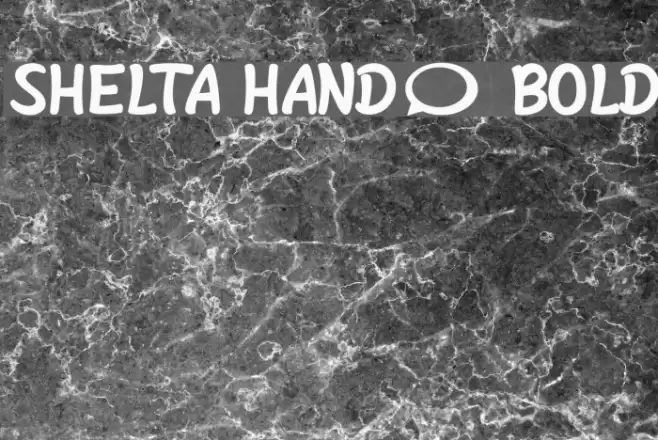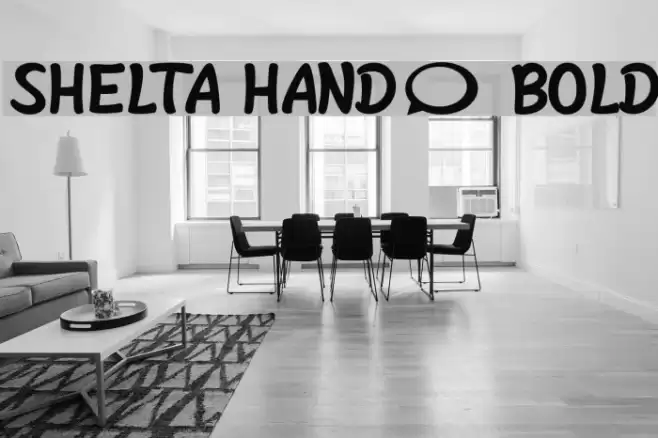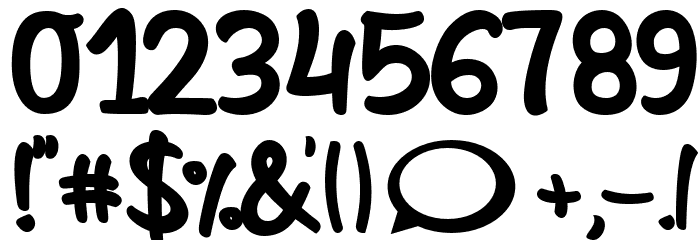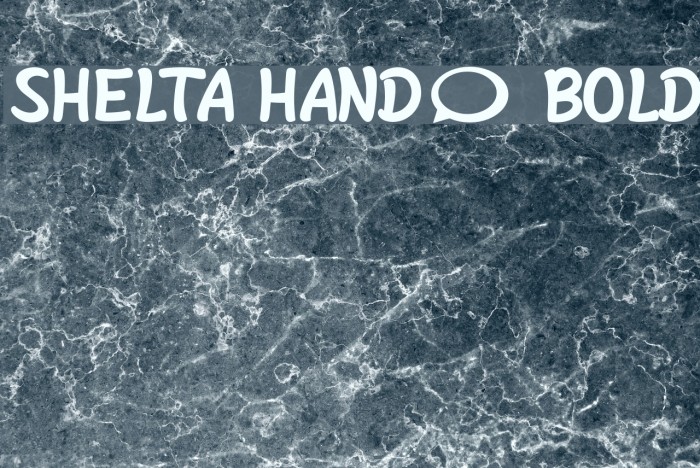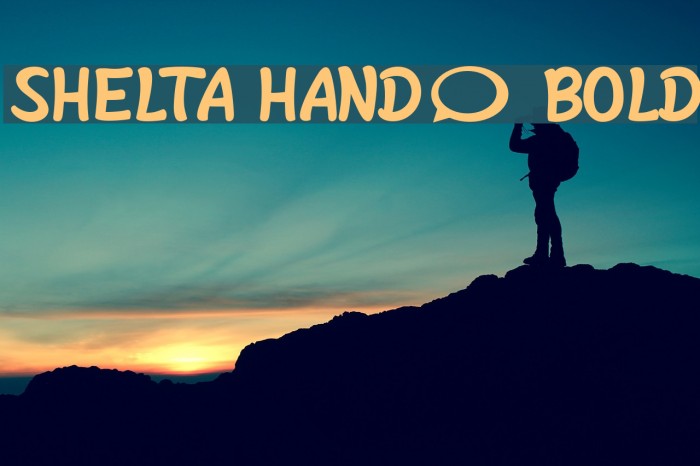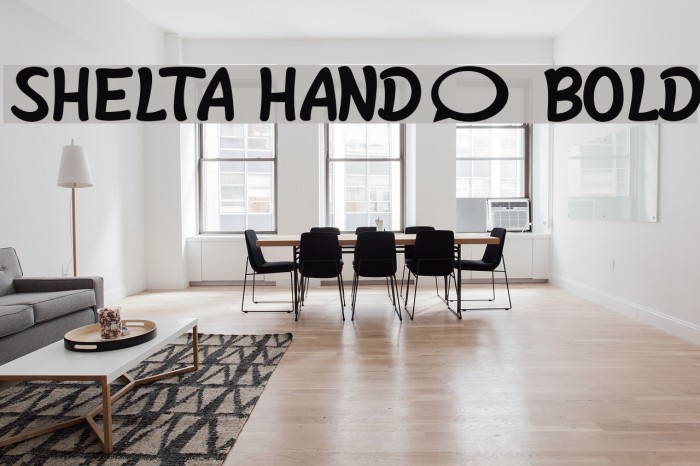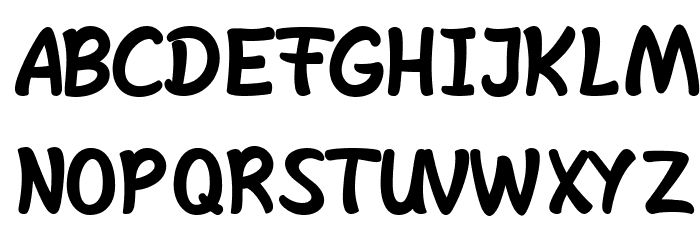
Shelta Hand* Bold Font
Shelta Hand* Bold Description
This font features a bold and playful handwritten style, characterized by its rounded and slightly irregular letterforms. The strokes are thick and consistent, giving it a strong presence on the page. The letters are closely spaced, creating a compact appearance that enhances its casual and friendly vibe. The font includes a full set of uppercase and lowercase letters, numbers, and a variety of special characters, making it versatile for different design needs. Its informal and approachable style makes it suitable for projects that require a personal touch.
A bold, playful handwritten font with rounded, irregular letterforms from Uncategorized fonts.
- Proposed Projects: Ideal for children's books, greeting cards, playful branding, and social media graphics.
- Character Spacing: Tight
- Overall Style: Playful, Casual